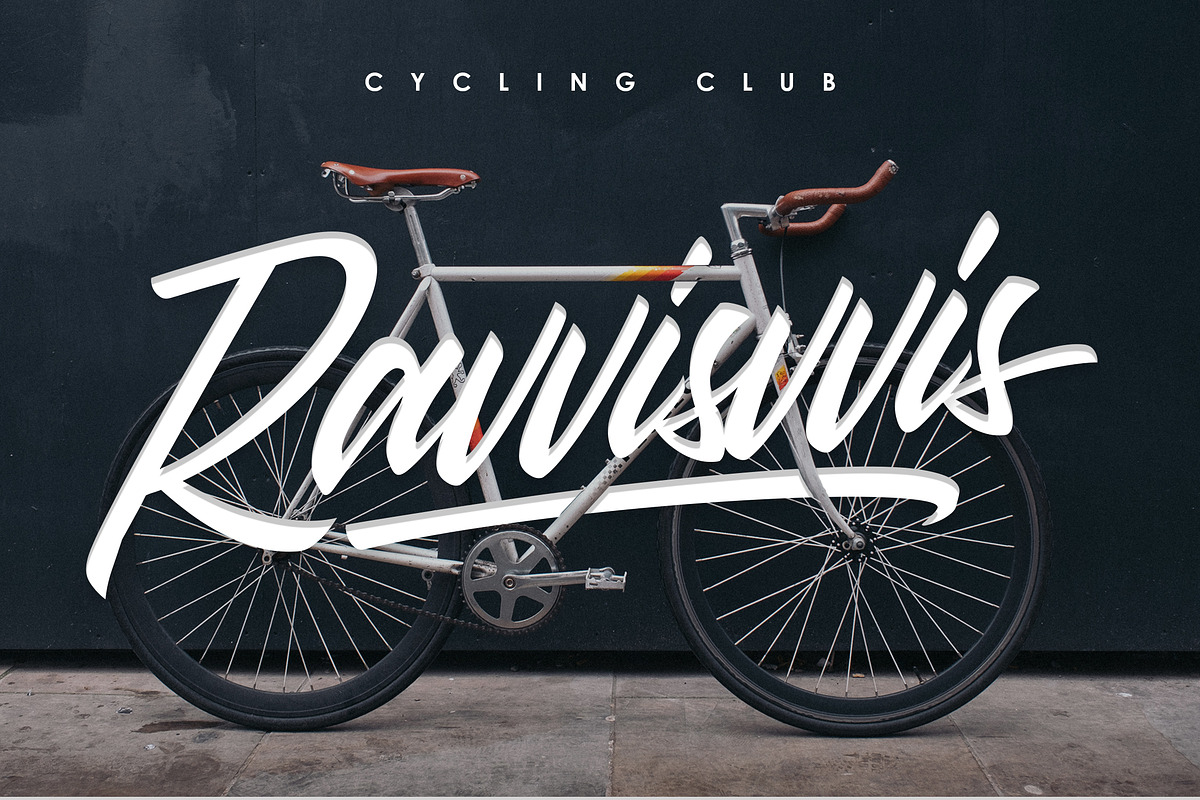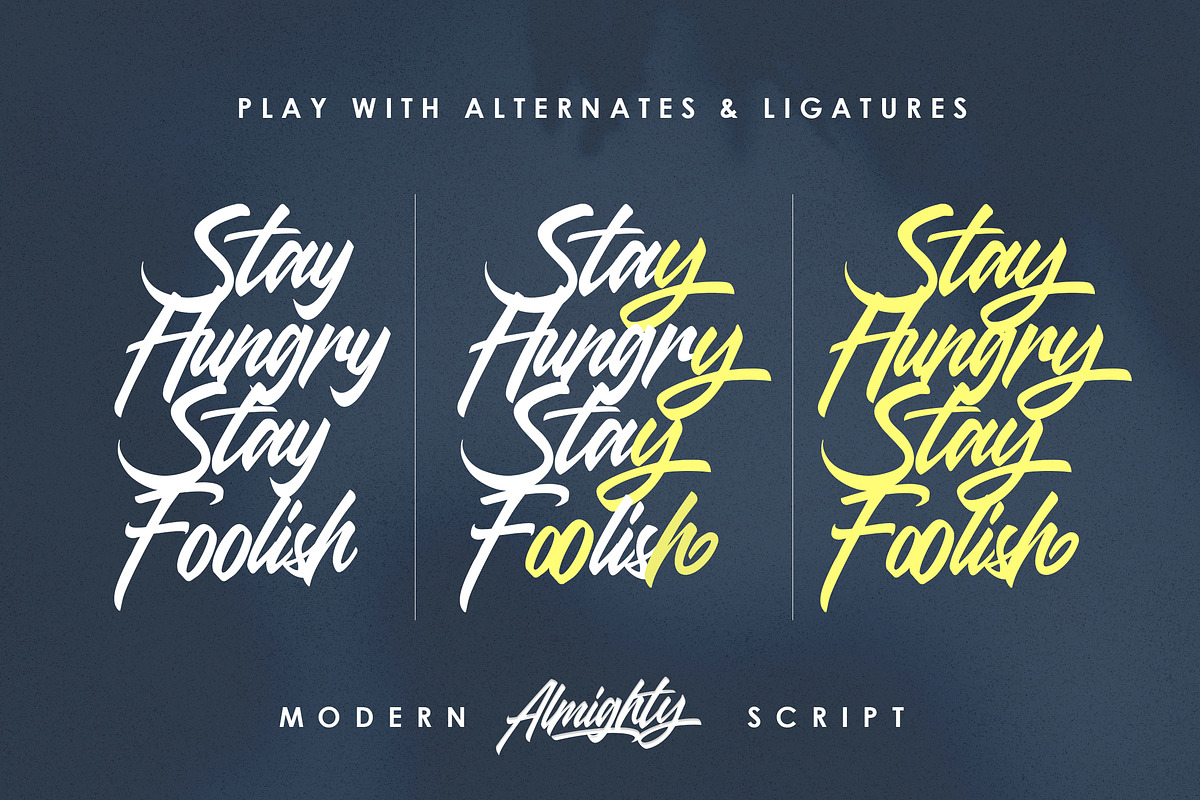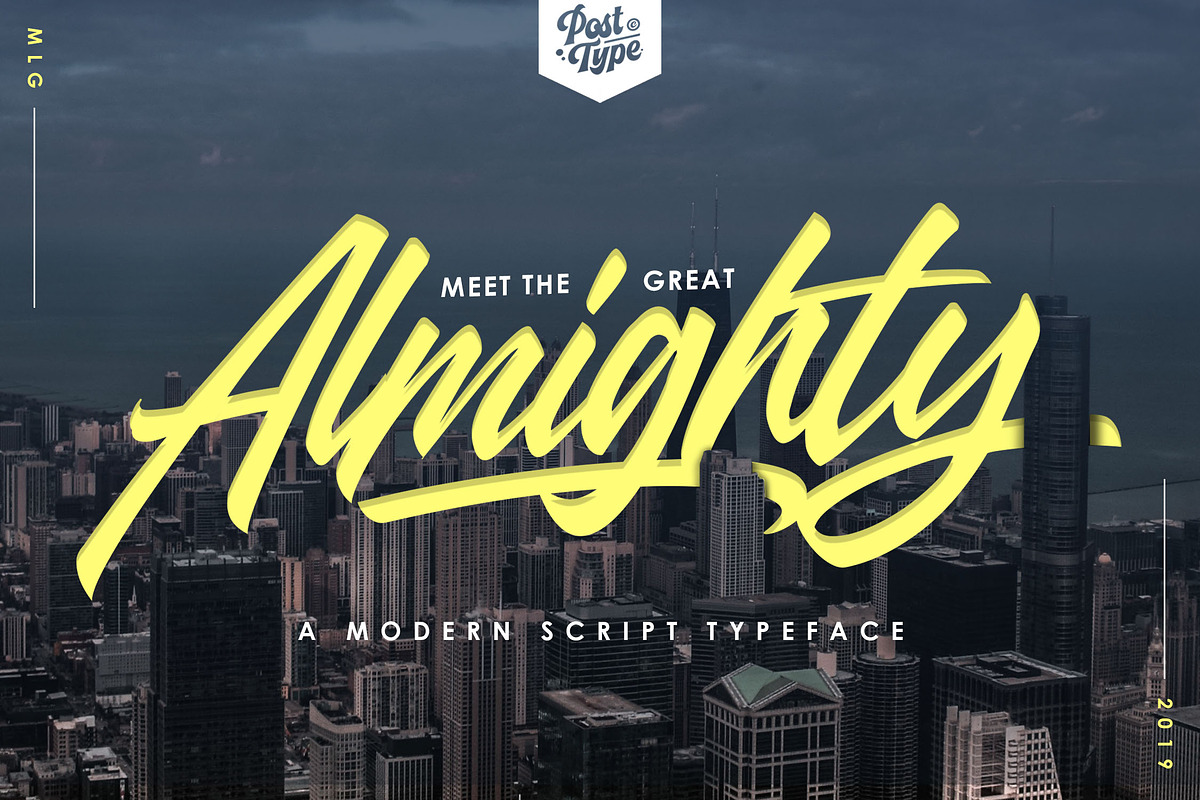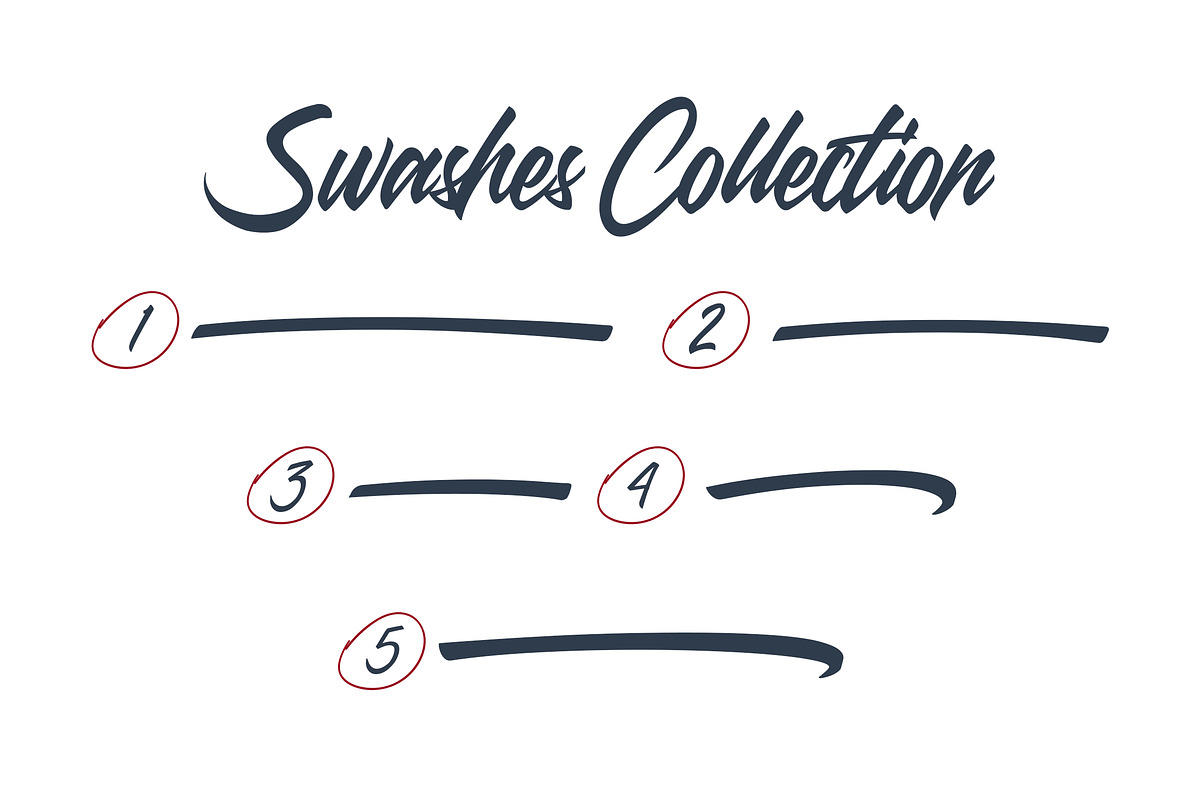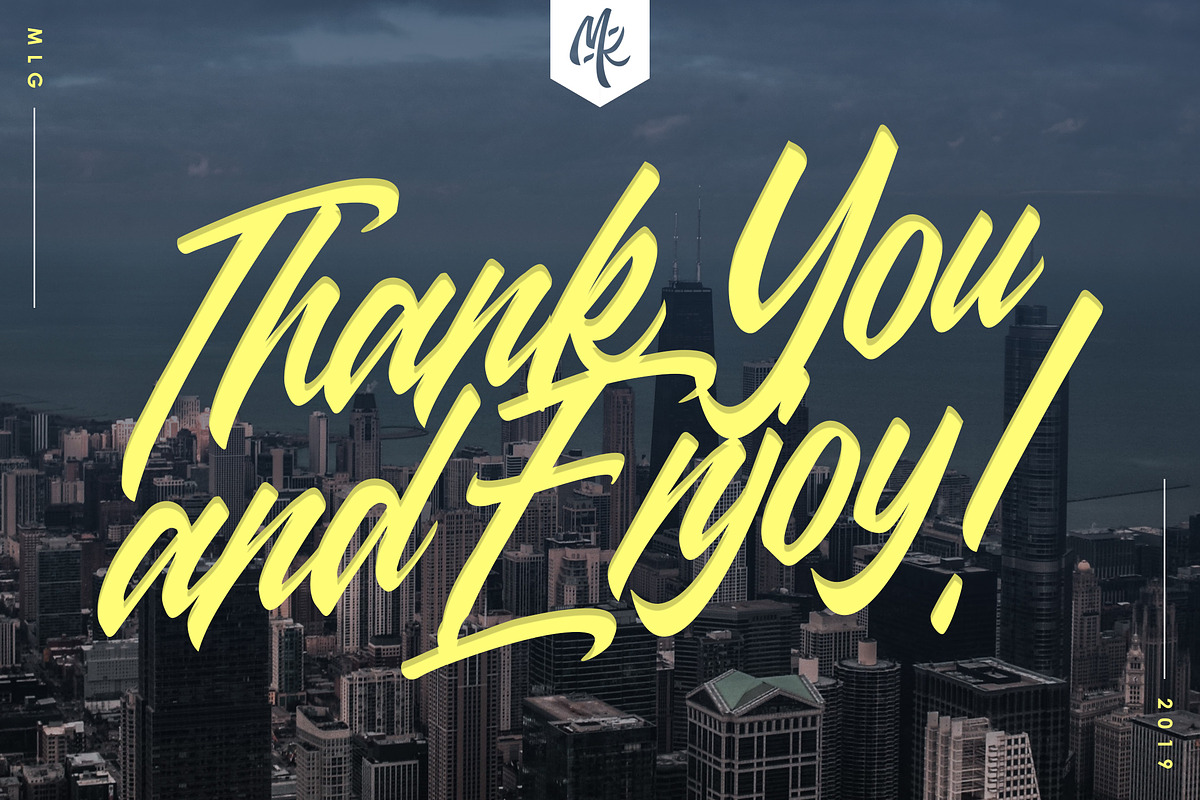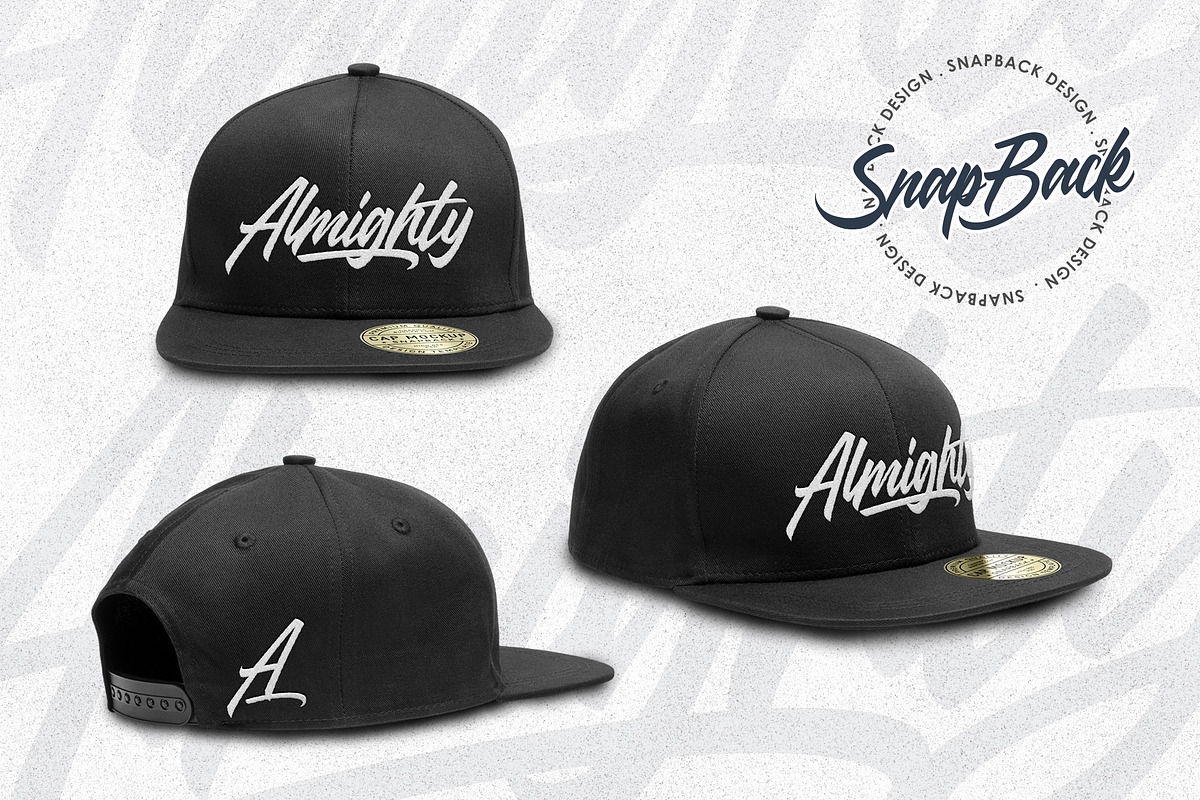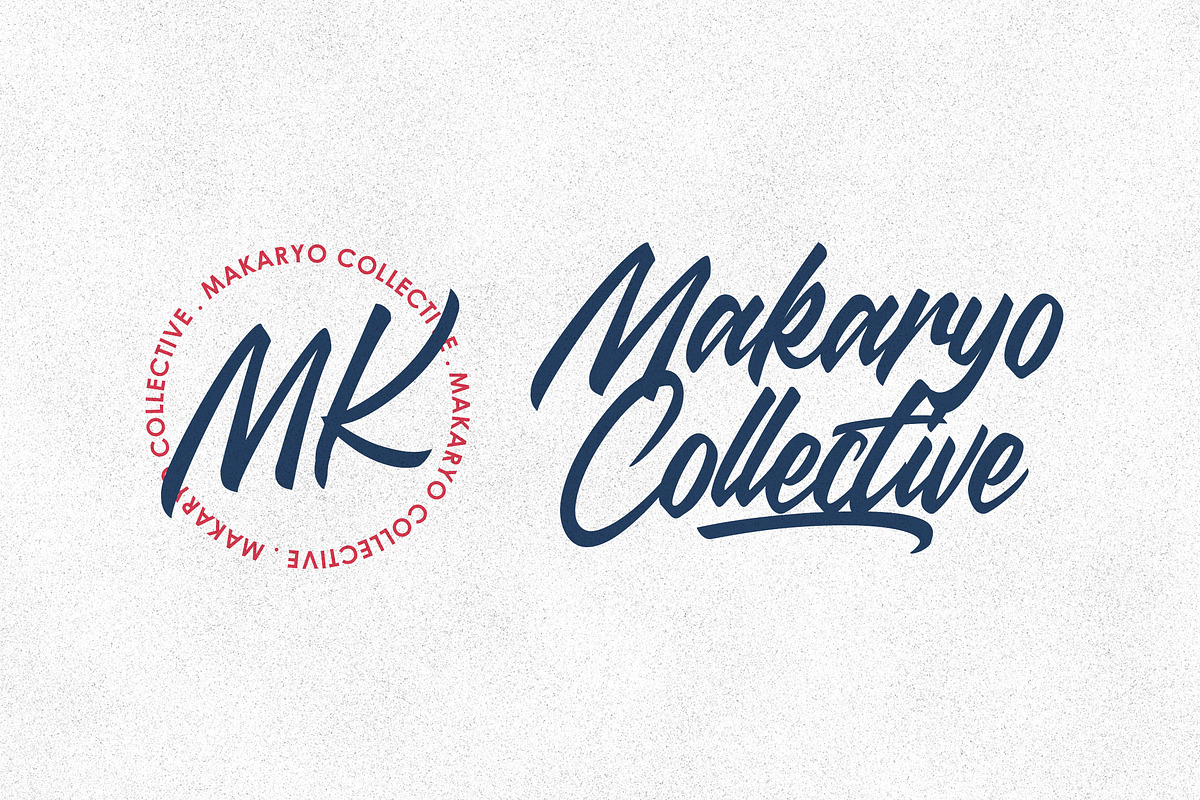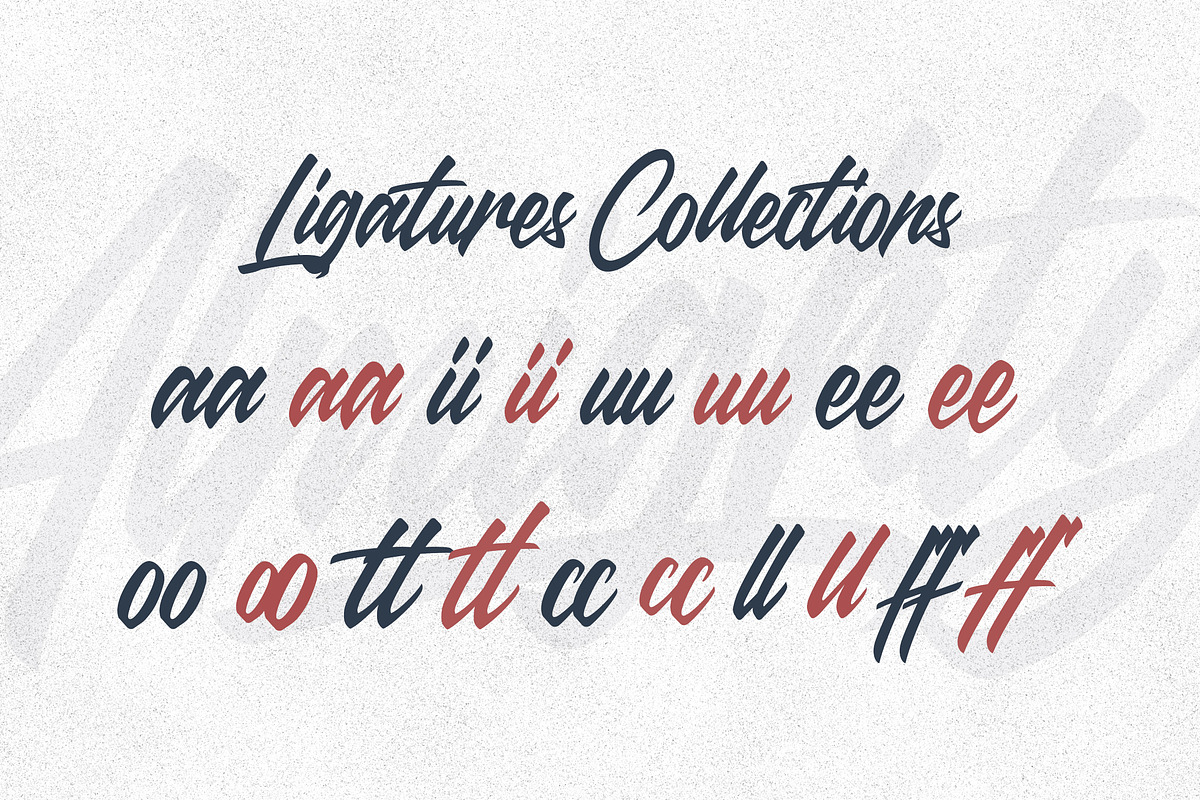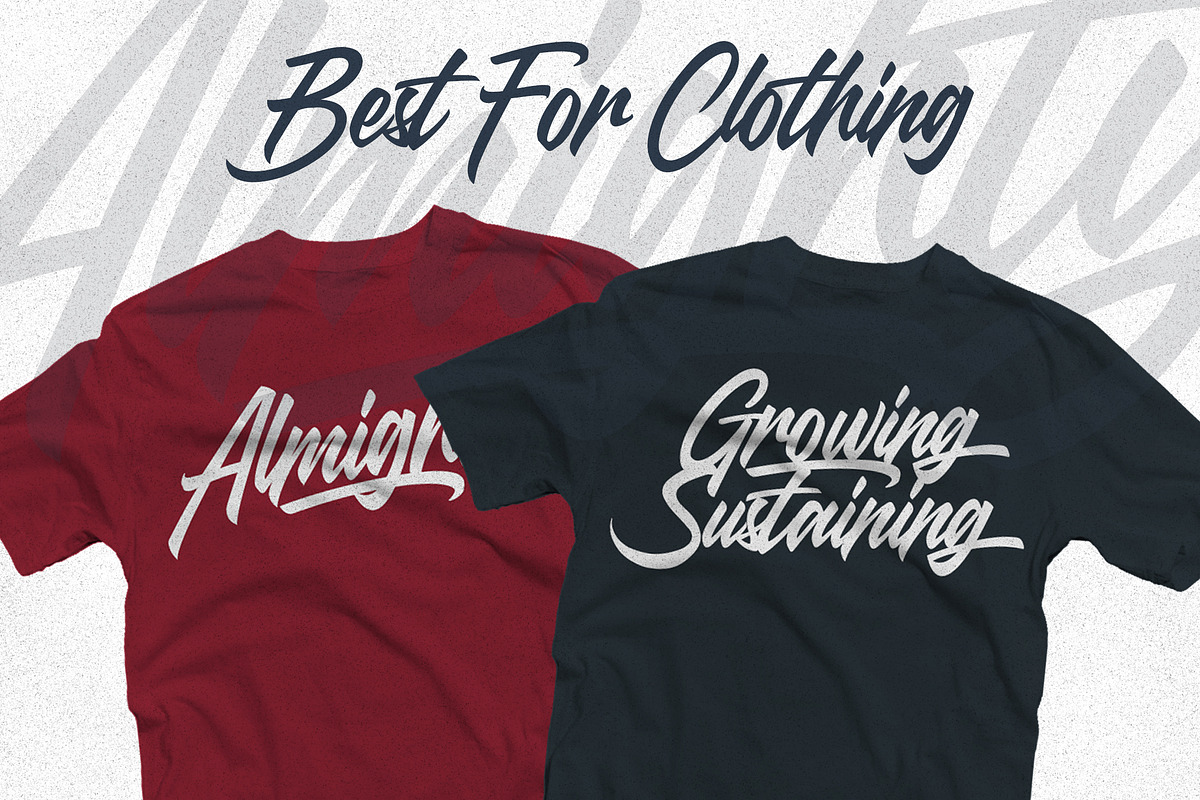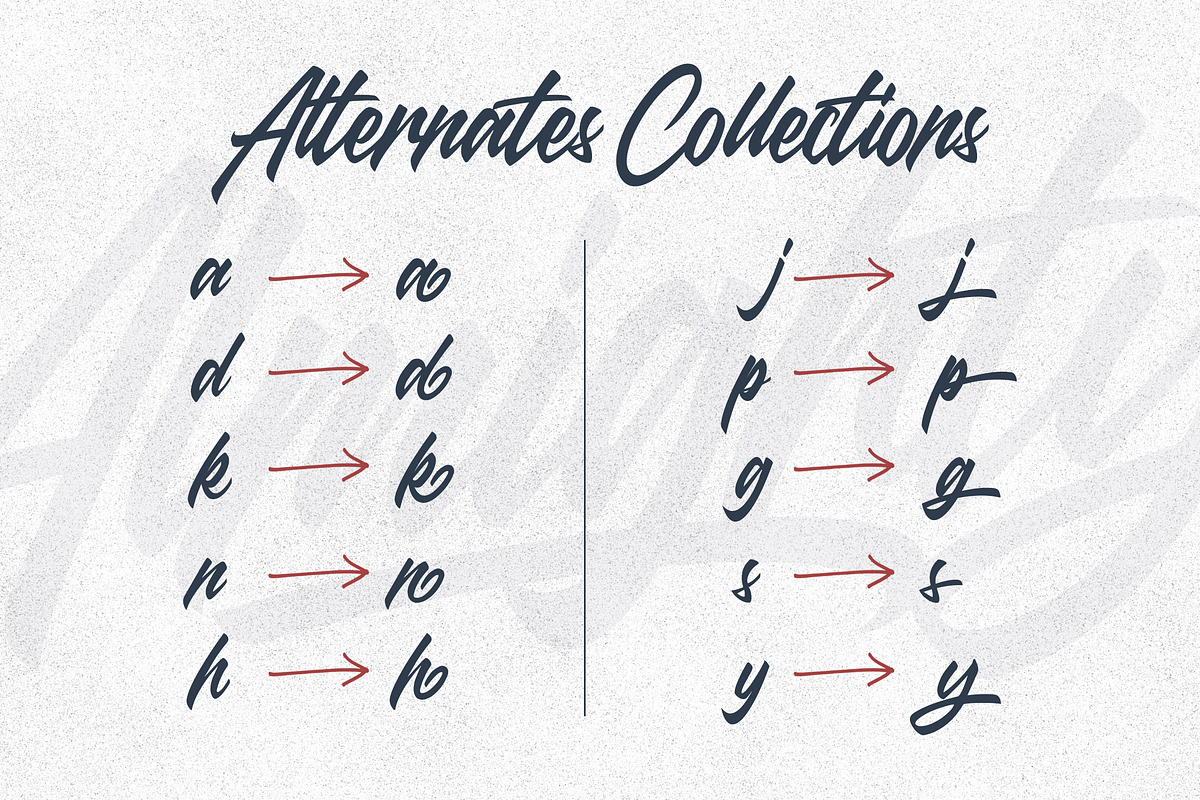
Almighty - Modern Script
Looks very fierce, inspired by logo on the basketball player's jersey around the world, we present to you, Almighty. Script fonts that are created with lettering process. It is perfect for logo design, and print materials.